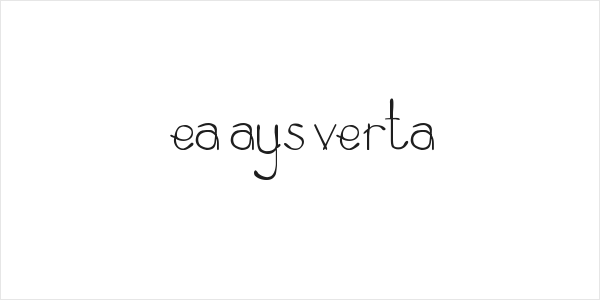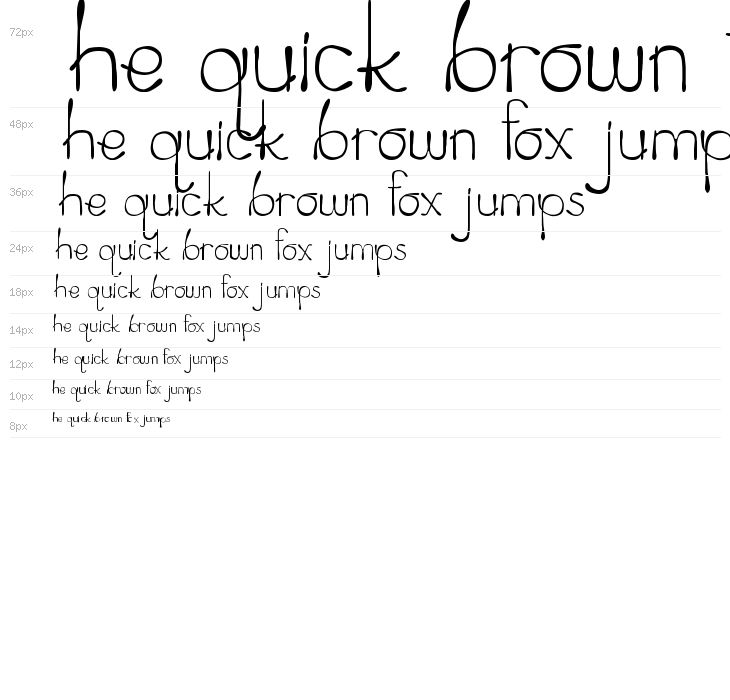
ZeaMaysEverta Font
ZeaMaysEverta Description
This font features a whimsical and playful design, characterized by its elongated ascenders and descenders that give it a unique, flowing appearance. The letters are thin and delicate, with a slight curl at the ends, adding to its quirky charm. The overall look is light and airy, making it suitable for creative and artistic projects. Its distinctive style is both modern and slightly retro, offering a fresh take on traditional handwritten fonts. The font maintains a consistent stroke width, contributing to its clean and uncluttered aesthetic.
| Use Case | Headlines, Creative projects, Invitations |
| Proposed Projects | Ideal for children's books, creative invitations, and playful branding. |